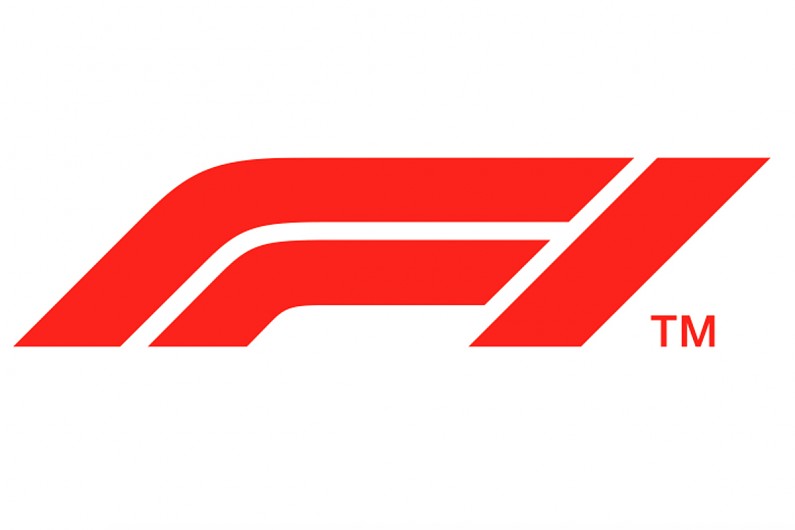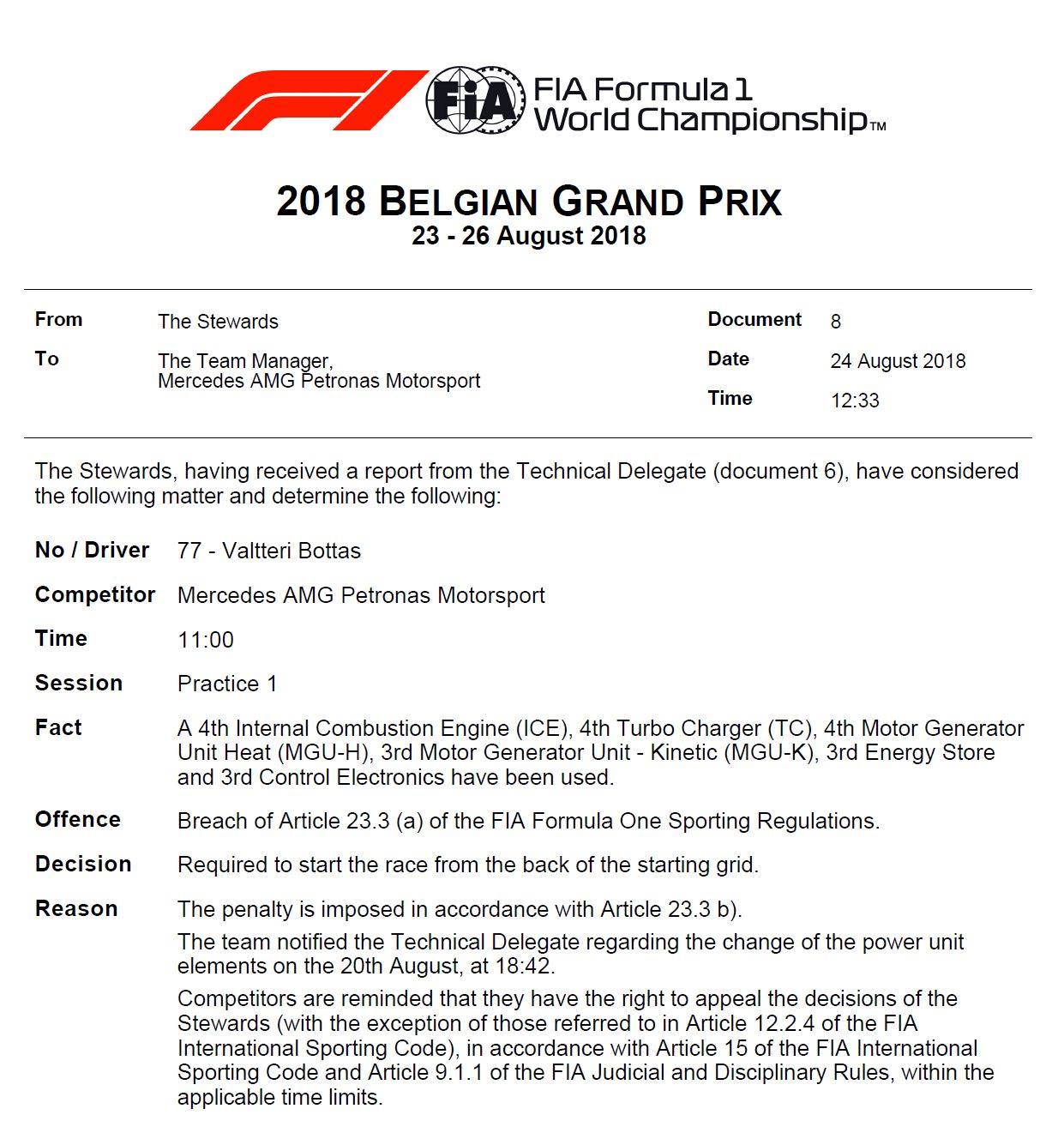
Formula 1 Font Generator
Formula 1 font generator. Previous font element skateboards font. News stories and discussion from and about the world of formula 1. Since its inception in 1950 formula 1 has grown to be one of the most recognized sporting events in the world.
The single seater motorsport. The f1 logo was updated in november last year. F1 regular f1 turbo f1 torque.
The closest font we can find for formula one logo is diamanti diagonal ef bold which is a display sans serif font designed by wolfgang dutschke and published by elsnerflake. Press question mark to learn the rest of the keyboard shortcuts. Die rubrik genutzte schriftarten beinhaltet posts ueber schriftarten die in logos filmen buechern etc.
Want to use the cool new formula 1 fonts. The fonts in use section features posts about fonts used in logos films tv shows video games books and more. F1 reg f1 turbo f1 torque.
Font meme ist eine quelle fuer schriftarten und typografie. Being a freelance logo designer i was obviously super hyped to see the redesign of the new formula 1 logo redesign below and i was also really impressed by the 3 f1 fonts that were created for the new f1 brand identity. Use the text generator tool below to preview formula 1 font and create awesome text based images or logos with different colors and hundreds of text effects.